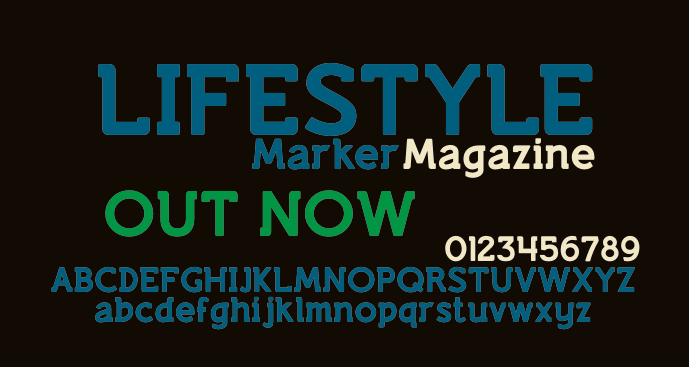
Just a semi-slab serif font I felt inspired to create after flicking through a magazine. This is the marker style fully rounded version of 'Lifestyle M54'. If you find this font useful then please consider a donation to justme54s[at]yahoo.co.uk, any amount will be greatly appreciated. A donation isn't necessary to use this font for personal or non-commercial use. I'll be interested to know how people use it so a picture or artwork sent to justme54s[at]yahoo.co.uk would be nice. If you wish to use this font commercially a donation or license is required, please email for further information. Alternatively, for one time commercial use just send details of usage along with your donation so that a return email can be sent as proof of rights to commercial usage. Usage Agreement You may not host this font anywhere online as it is hosted exclusively at FontSpace.com and Dafont.com. Any links for downloads should be directed to FontSpace or Dafont. You may share the font electronically but the Zip file should remain intact with the font alongside all other files as packaged. You may not sell this font, but are allowed to distribute it freely i.e. in magazines. |